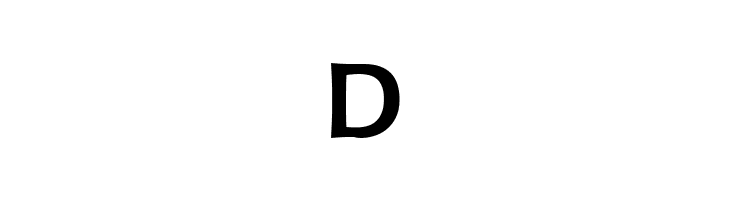
A modern, elegant font with medium contrast and smooth curves, ideal for versatile applications.
A bold, modern font with strong lines and a professional appearance.
A bold, oblique font with a strong slant and thick strokes.
A bold, slanted font with strong, angular characters.
A bold, modern font with clean lines and strong presence.
A bold, oblique font with strong, slanted letterforms for a dynamic and modern look.
A refined and elegant typeface with clean lines and balanced proportions.
An elegant, oblique font with a modern and sophisticated style.
A modern and elegant font with clean lines and subtle contrast.
A modern, condensed sans-serif font with a clean and professional look.